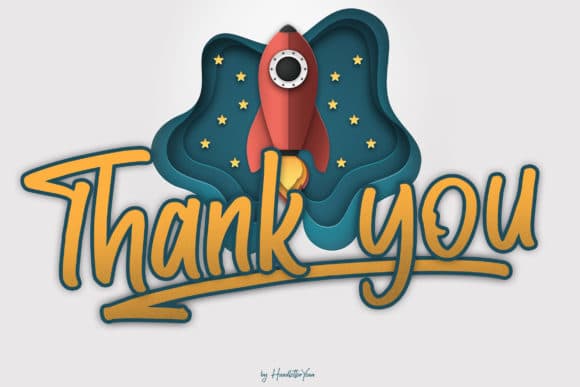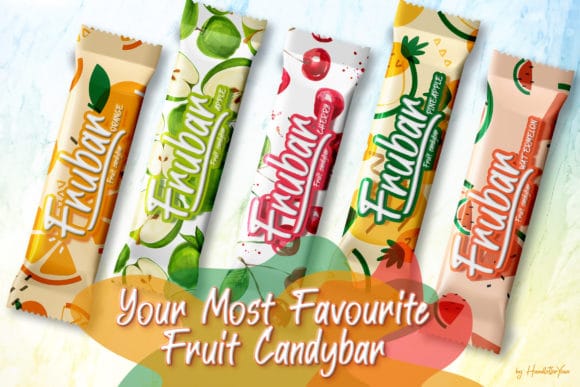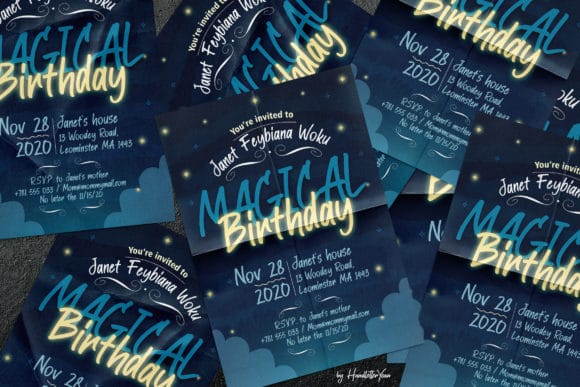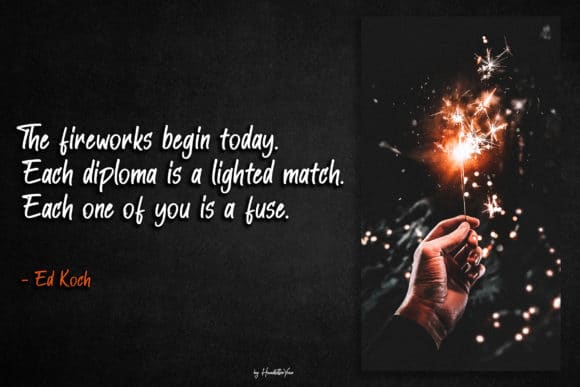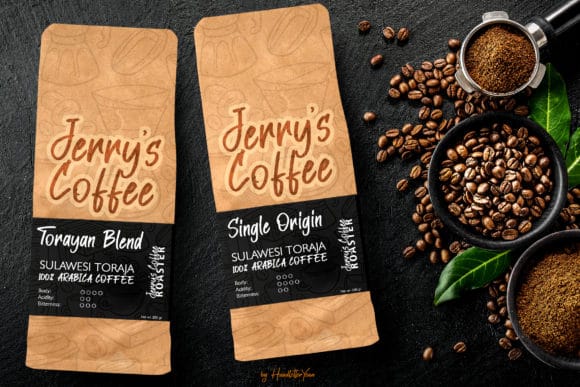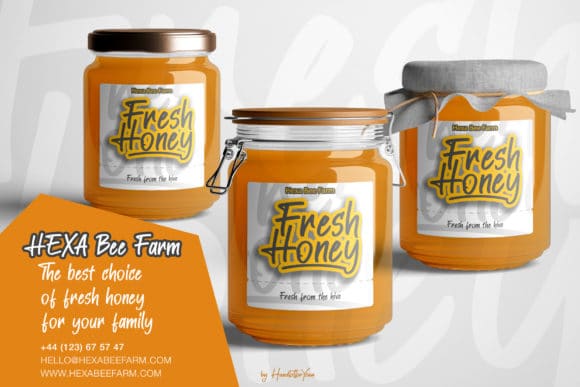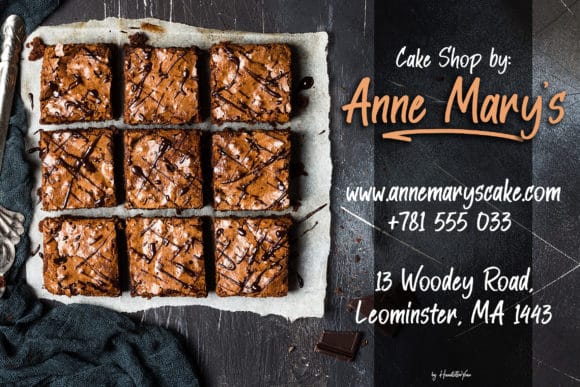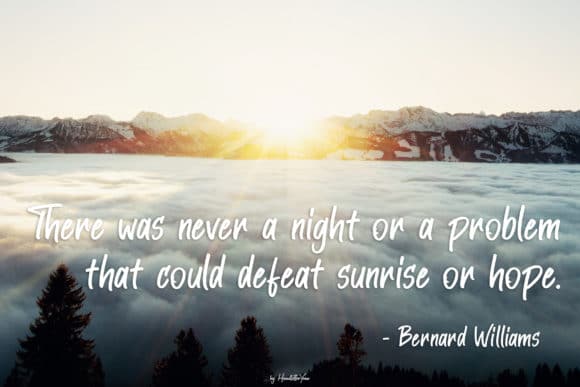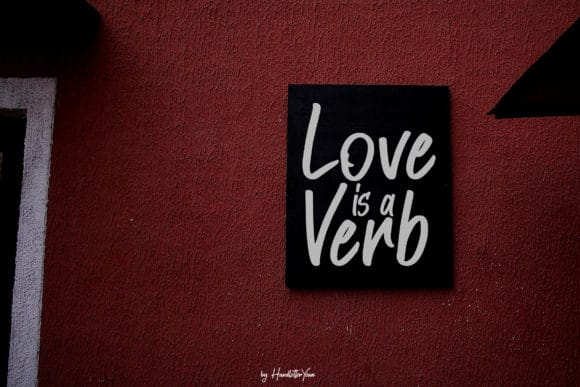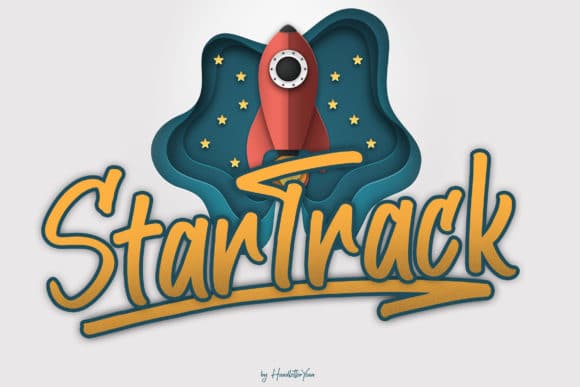
Star Track is a one-of-a-kind display font, designed by yean.aguste. It’s suitable for both simple or sophisticated designs, making it an extremely versatile must-have.
Star Track is perfect for branding, watermark, business card, clothing, magazine, web, and any other design projects. With 45 unique ligatures, Star Track looks naturally.